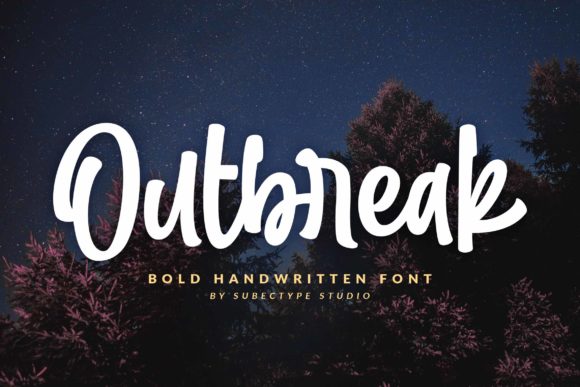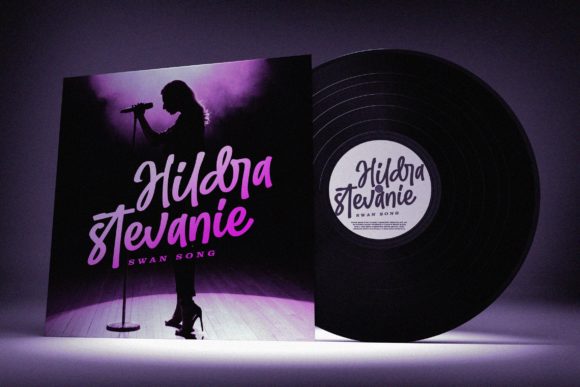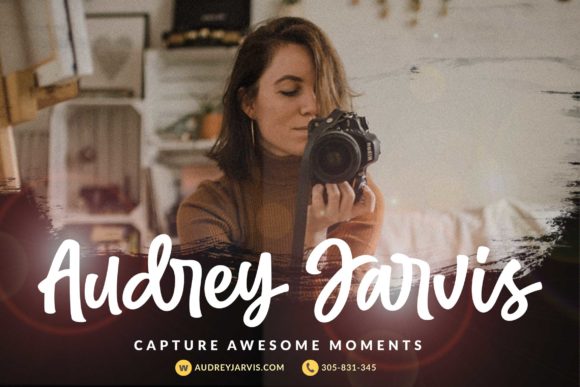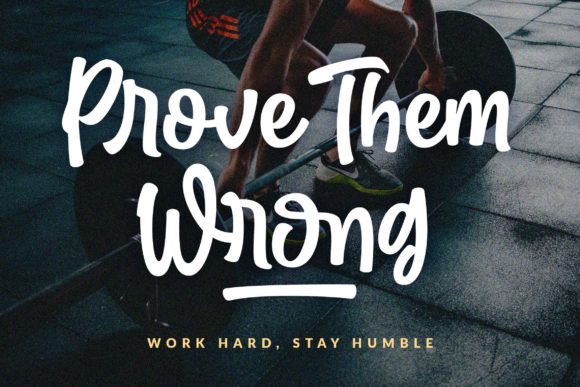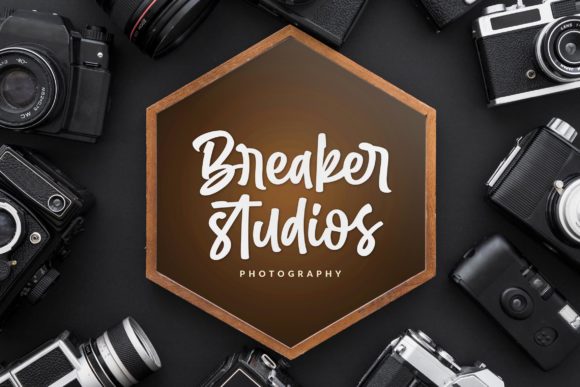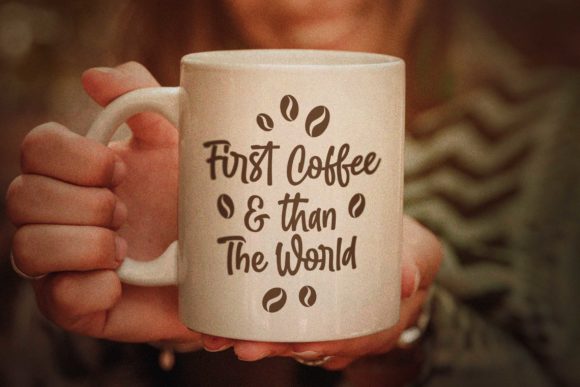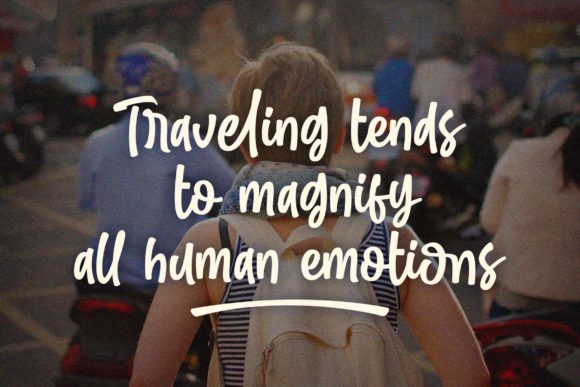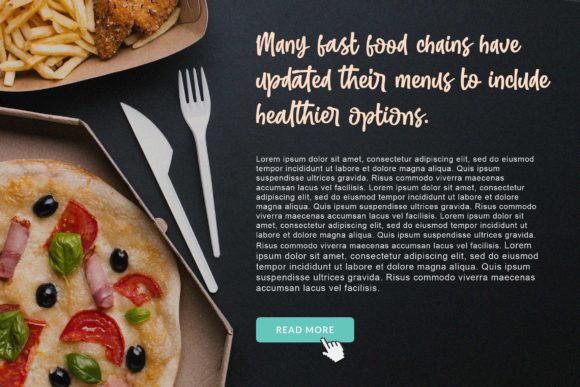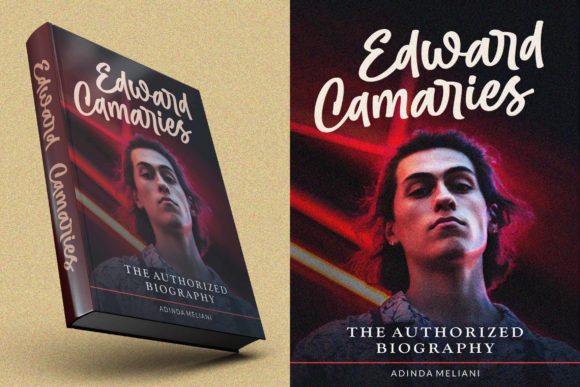
Outbreak Font
Outbreak is a cute and bold script font with an incredibly friendly feel. Whether you’re looking for fonts for Instagram or calligraphy scripts for DIY projects, this font will turn any creative idea into a true piece of art!